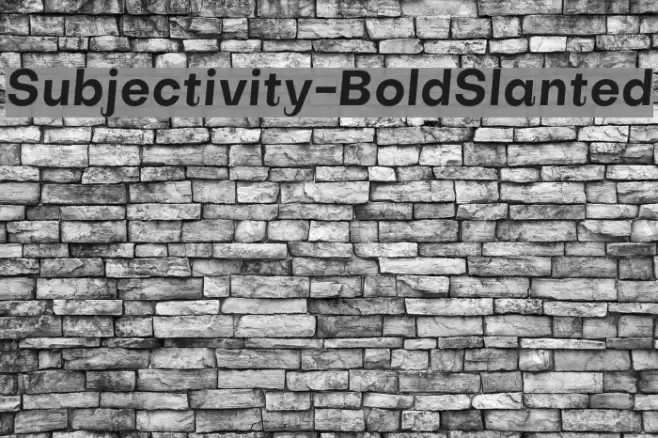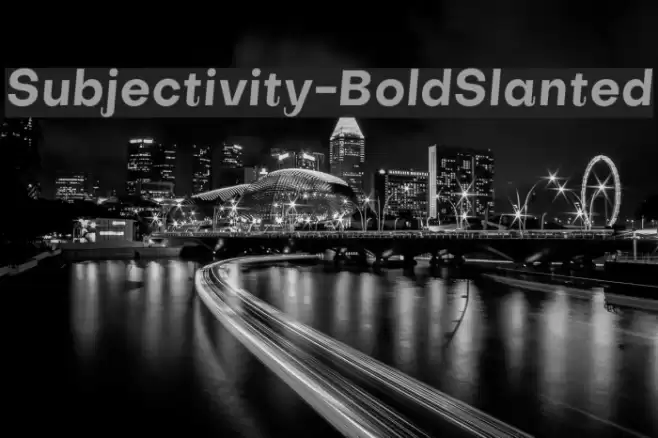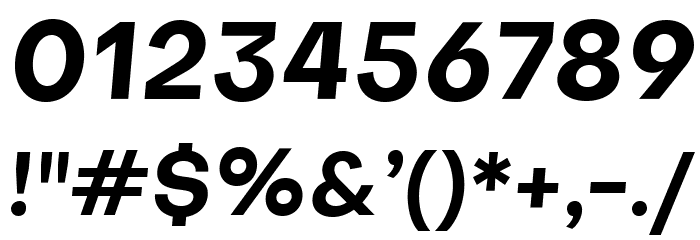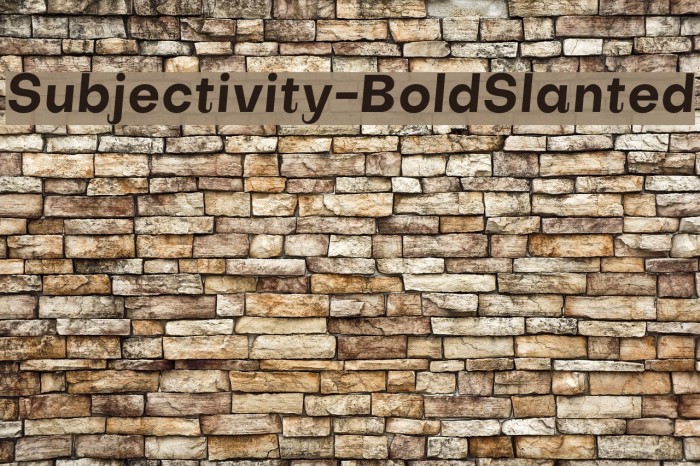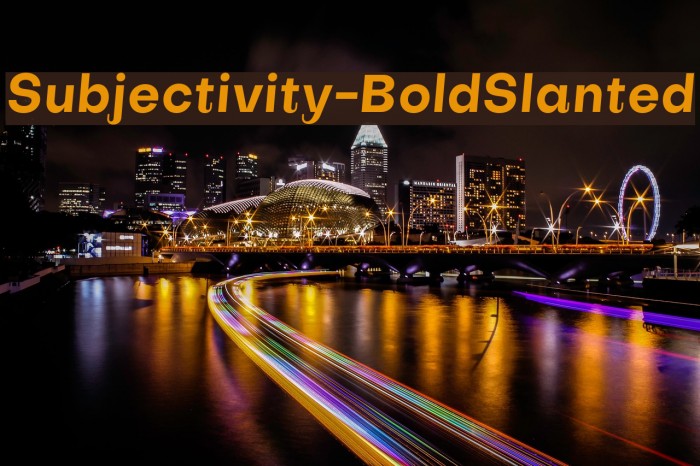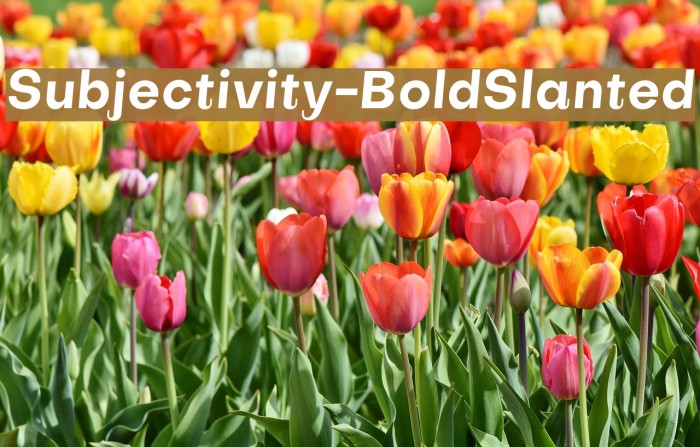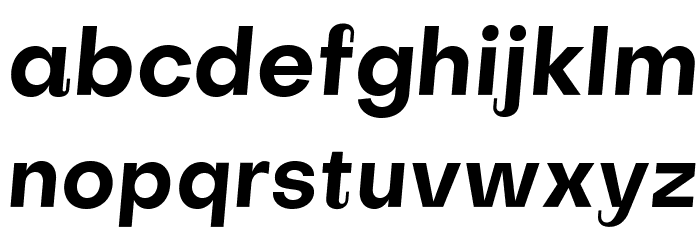
Subjectivity-BoldSlanted Font
Subjectivity-BoldSlanted Description
This font exhibits a bold and slanted style, characterized by its strong, assertive strokes and a noticeable forward tilt. The uppercase letters are robust and impactful, while the lowercase letters maintain a consistent weight, enhancing readability. The numerals are clear and well-defined, matching the overall boldness of the alphabet. Special characters are crafted with precision, ensuring they stand out without overpowering the text. The font's design is modern and dynamic, making it suitable for various applications where emphasis and clarity are required.
A bold, slanted font with strong strokes and a modern, dynamic style from Uncategorized fonts.